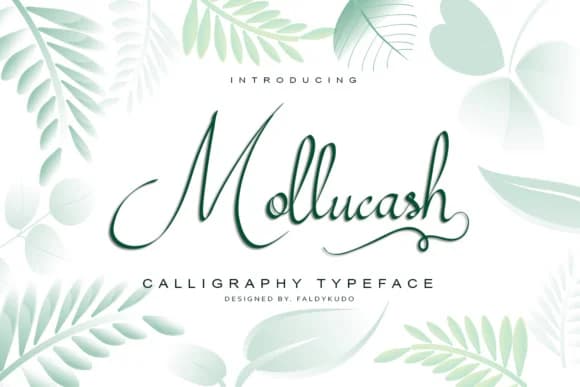
Mollucash Font by xdCreative is a hand-drawn calligraphy script that brings organic elegance and authentic character to typography. The flowing letterforms and natural stroke variations make this typeface ideal for a range of sophisticated design applications, from designing wedding invitation suites that capture the romance and emotion of special occasions to creating distinctive branding packages for boutique businesses, independent designers, and luxury lifestyle brands. The natural pen-drawn quality is equally suited for crafting personalized greeting cards that feel genuinely heartfelt and intentional, adding handwritten sophistication to fashion brand labels and identity systems, creating beauty and wellness product packaging that feels artisanal, and designing luxury stationery suites for high-end clientele.
What sets Mollucash apart is how the authentic variations in each letterform feel carefully considered rather than rigid or artificially perfect. This calligraphy typeface works beautifully across both print and digital applications, encouraging creative layering, mixed-media compositions, and decorative applications that feel contemporary and human-made. Whether you're building a complete brand identity from the ground up or enhancing individual design assets for social media and marketing materials, the natural stroke quality brings consistency, warmth, and distinctive character that resonates with audiences seeking something more personal and crafted than standard typefaces can offer.
Mollucash Font is a script font that shines as a display or heading face. Pair it with a clean sans-serif or serif font for body text β the contrast creates a clear hierarchy while the two styles stay balanced and easy to read.
Mollucash Font